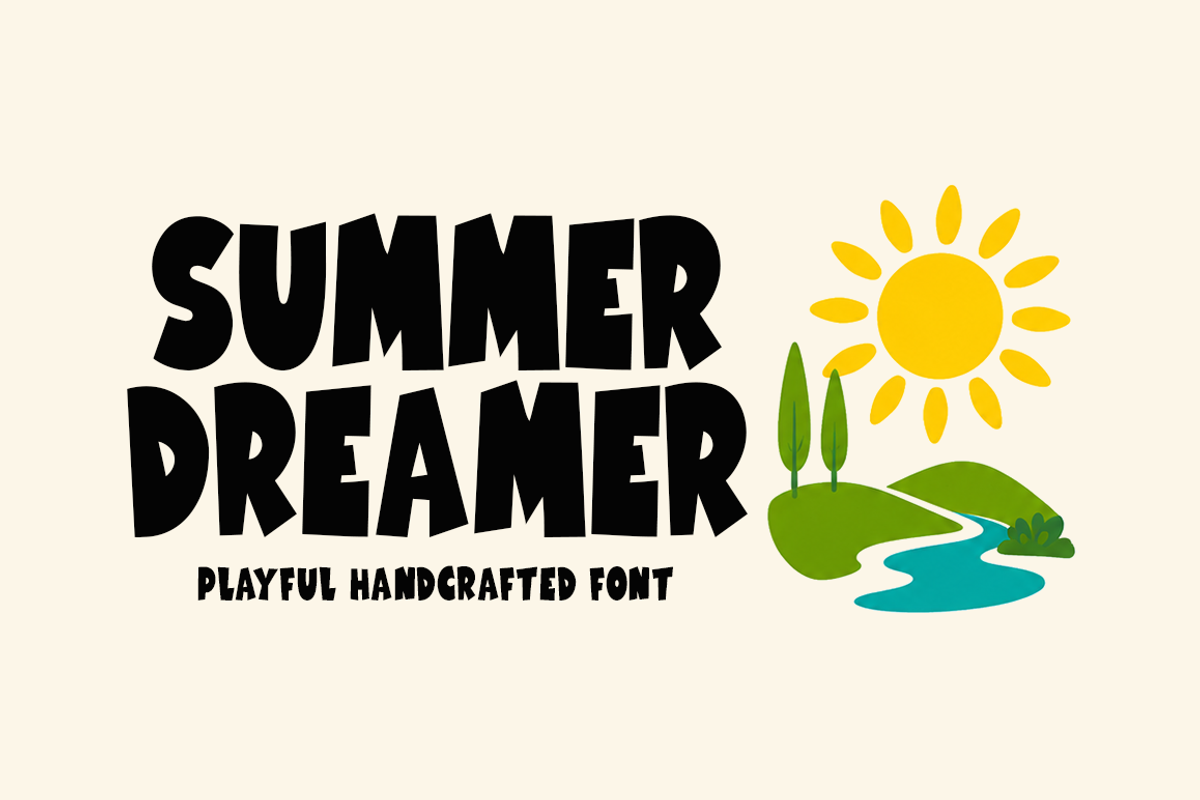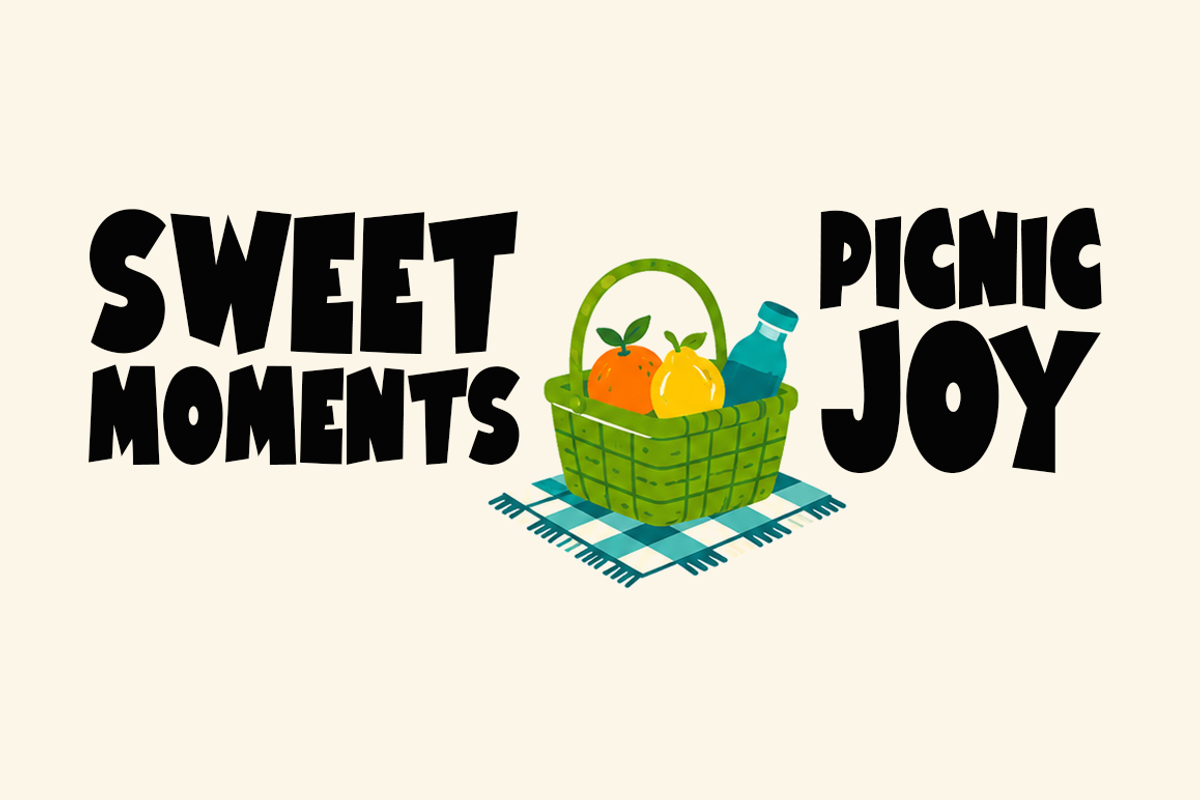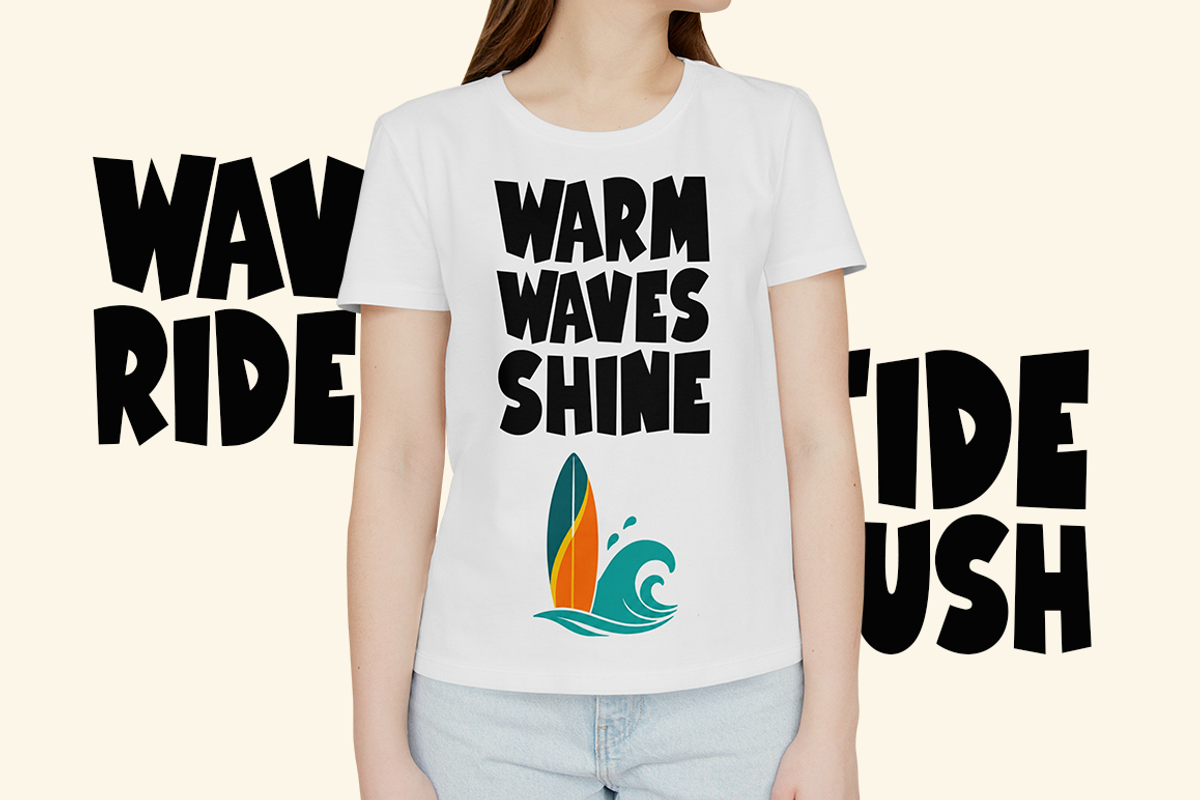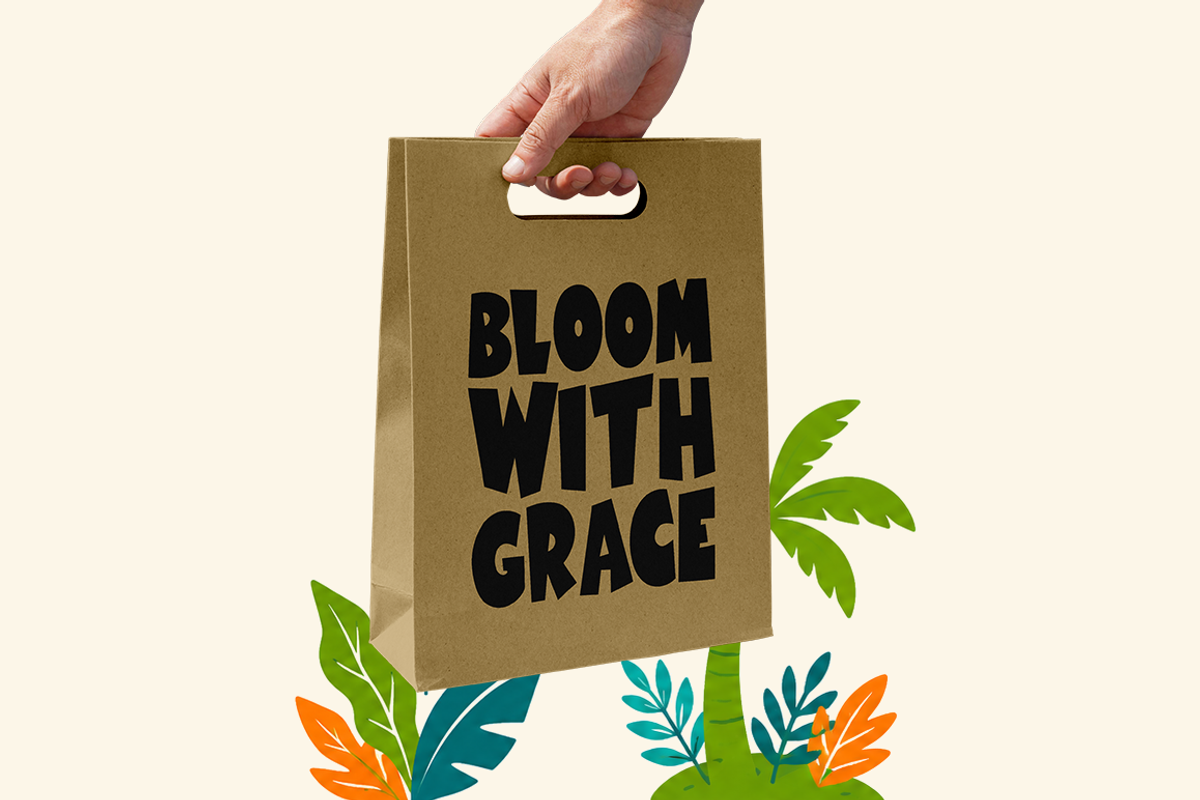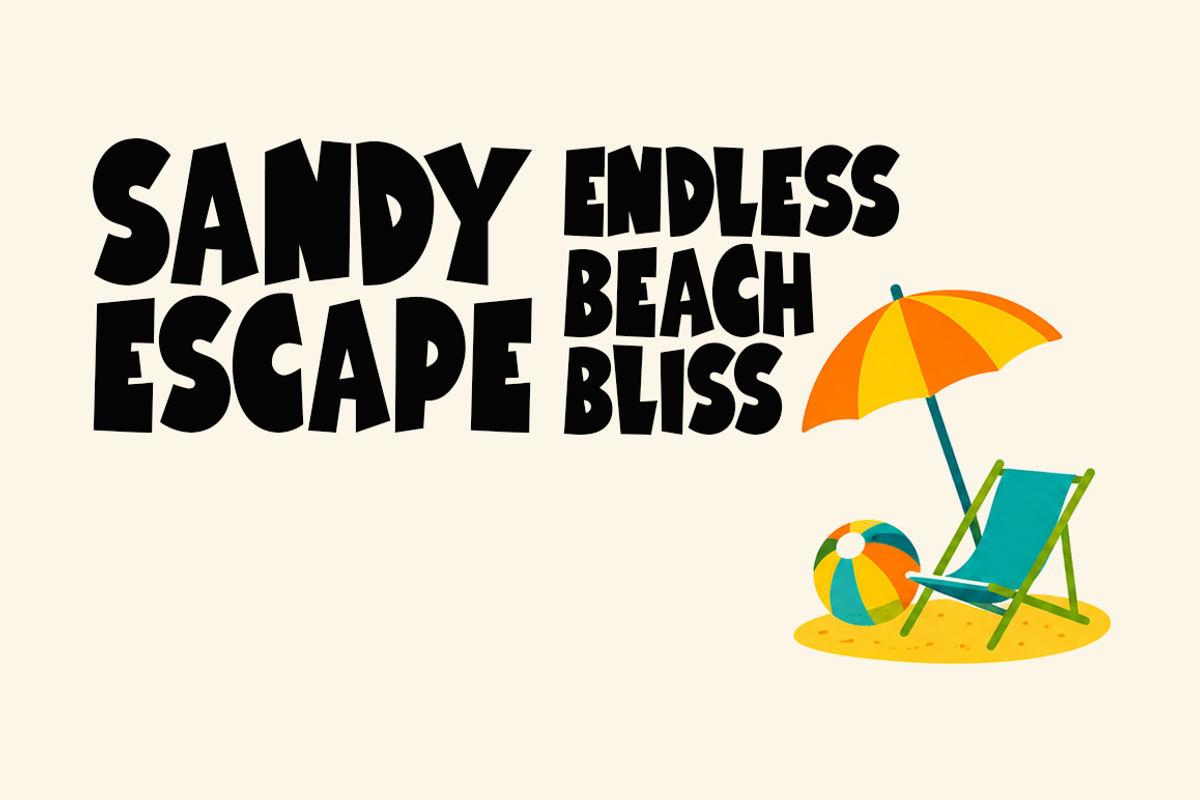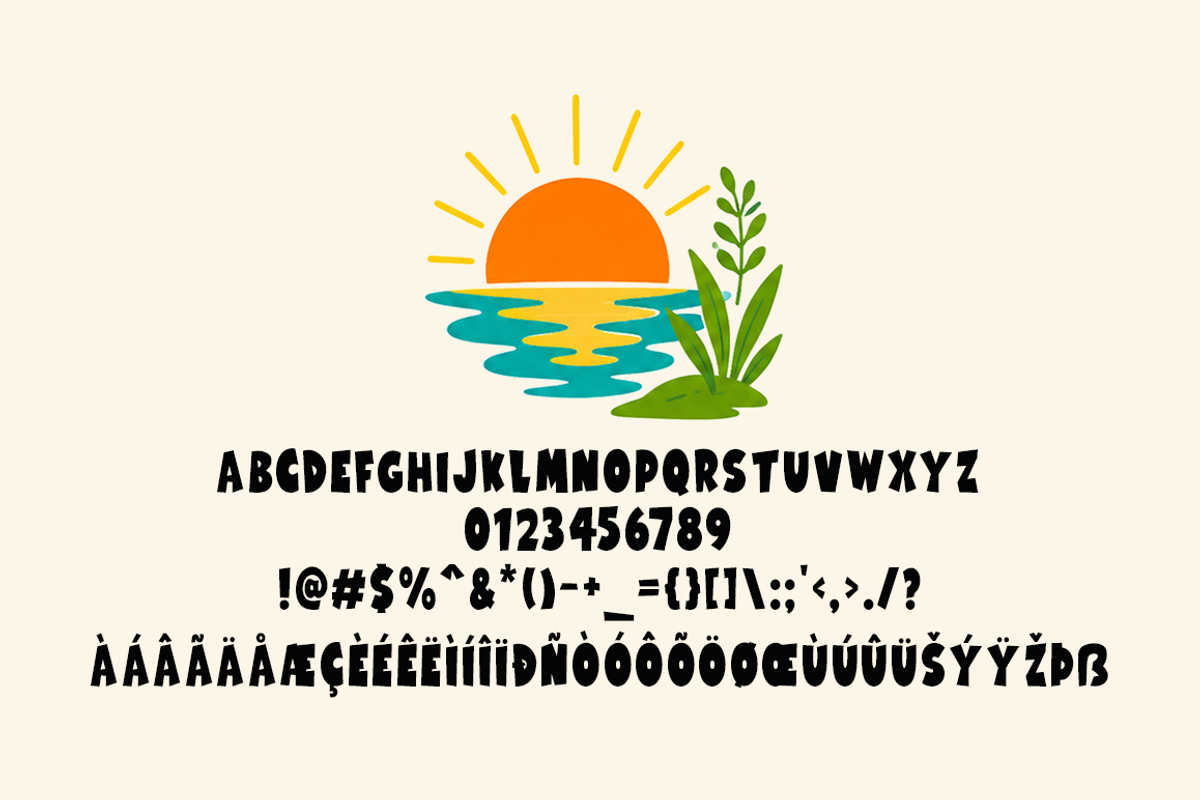
Summer Dreamer Typeface
Introducing Summer Dreamer!
Summer Dreamer is a bold, chunky display font inspired by warm sunshine, soft breezes, and dreamy summer vibes. It features thick, playful shapes that give every letter a strong yet fun personality. This font is perfect for branding, posters, quotes, logos, packaging, and social media designs. It brings a fresh, happy, and youthful summer feeling to any creative project.
Includes a range of multilingual support